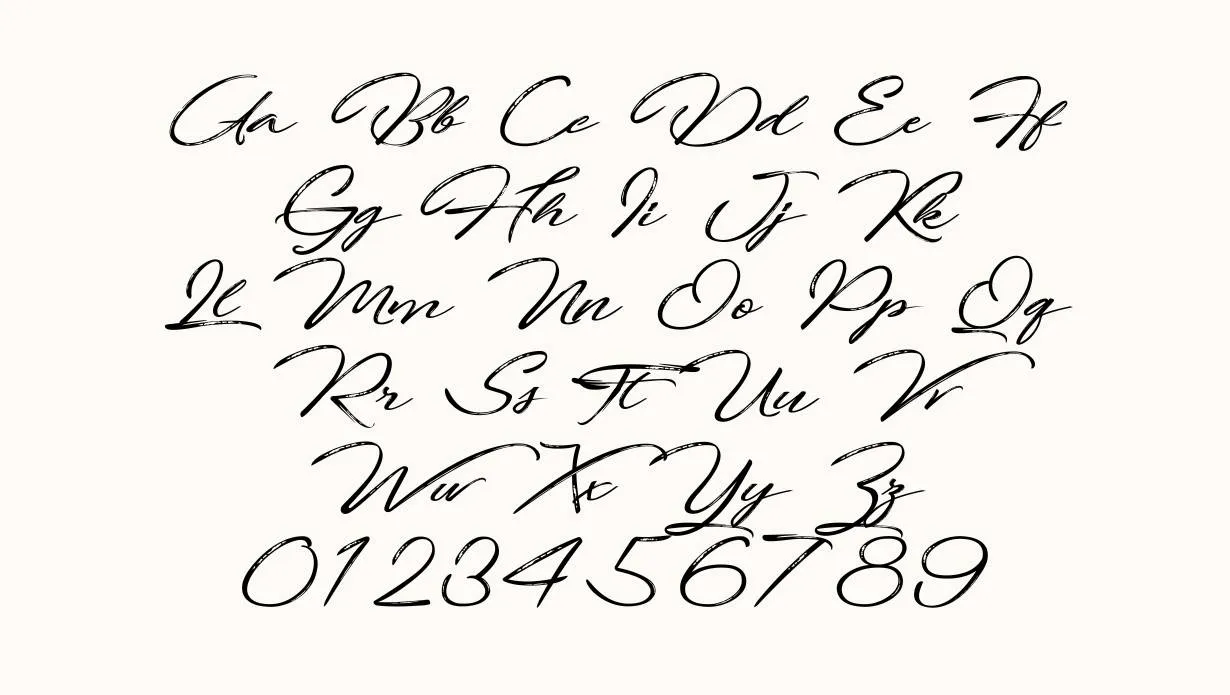
Fortunates December Font is a unique and artistic typeface known for its creative and expressive design.
It’s frequently used in artistic and imaginative projects, posters, and branding materials where designers want to convey a sense of individuality and creativity.
The font’s inventive letterforms add a dynamic and artistic element to your design work. The coveted texture of this typeface makes it a favorite among creators. Furthermore, you have the option to explore other fantastic typefaces, such as BlowBrush Font and Beauty Brand Font, that offer unique qualities.